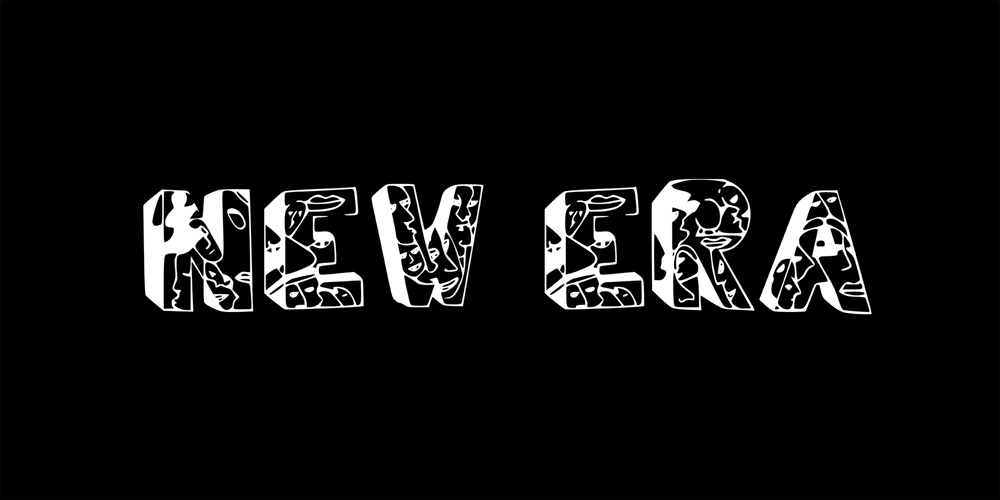
New Era Font Family was designed by Nur Abou and published by Authentic World. New Era contains 1 styles and family package options. Decorative, eye-catching and extravagant font. It stands out for the depth of its lines. In addition, it has a three-dimensional effect, it is a typeface that represents the beginning of a new stage, showing the Renaissance change with human figures and parts of the face (eyes, mouths, noses, animal bodies).You can use it for web designs, brands, advertising campaigns, titles, covers, posters, and much more. “New era” is a typeface worked with many details hidden in its design, each character is a new world that tells a story.